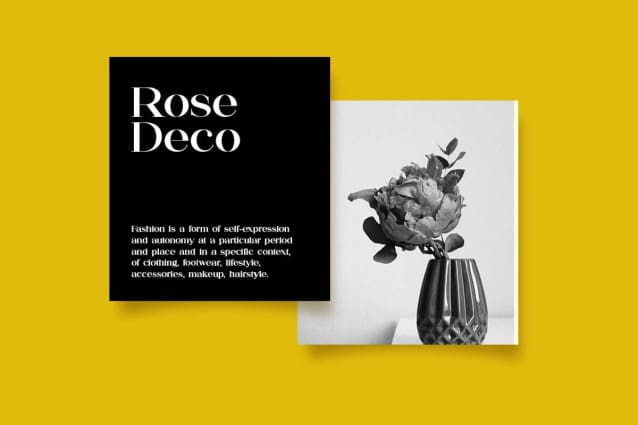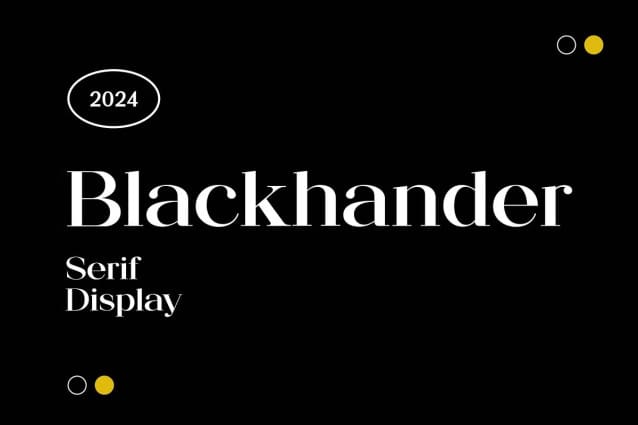
Blackhander Font
Blackhander Font – A Serif Display Font that feels beautiful, classy, ​​elegant, and stylish. This font is ideal for a variety of projects, such as signatures, stationery, logos, weddings, typographic quotes, magazine or book covers, website headers, branding, and more. Also, branding related to fashion or editorial design that showcases both masculine and feminine qualities.